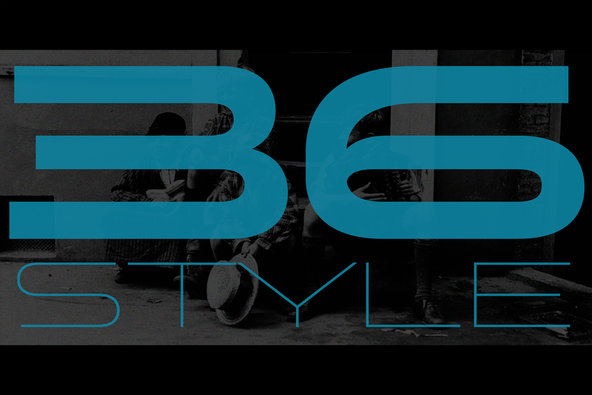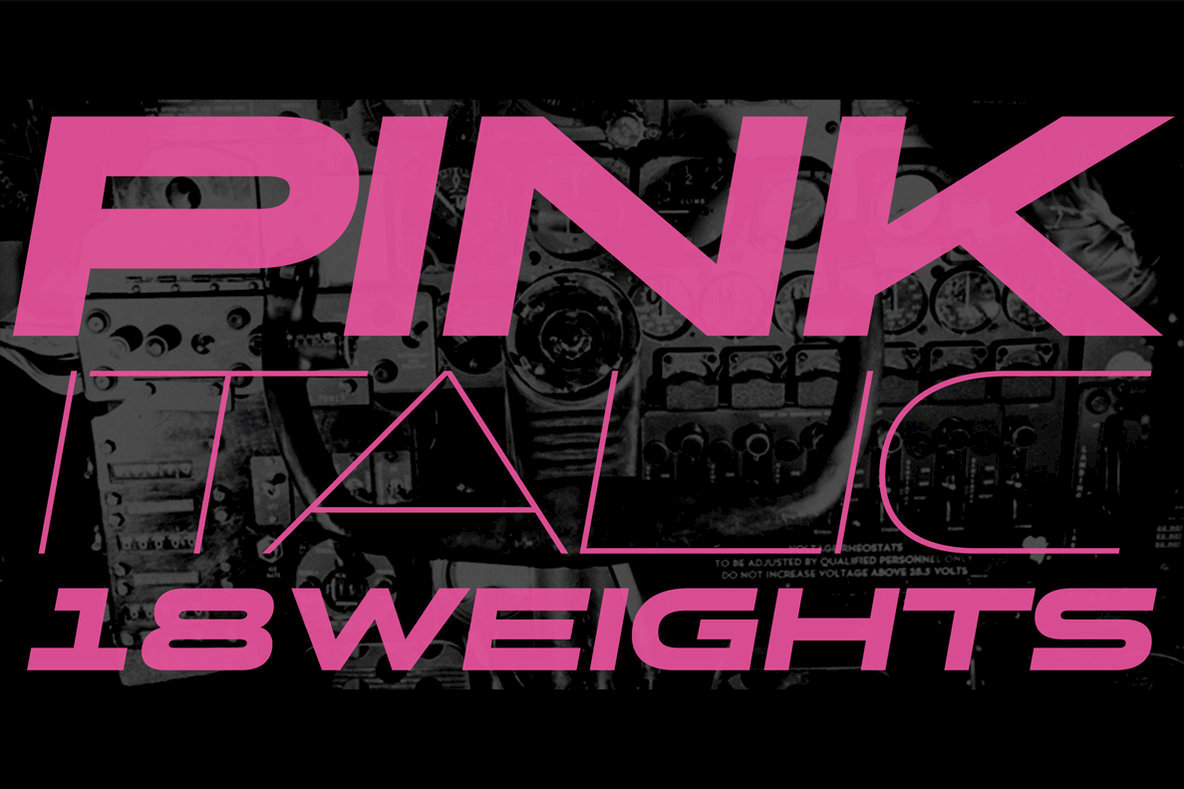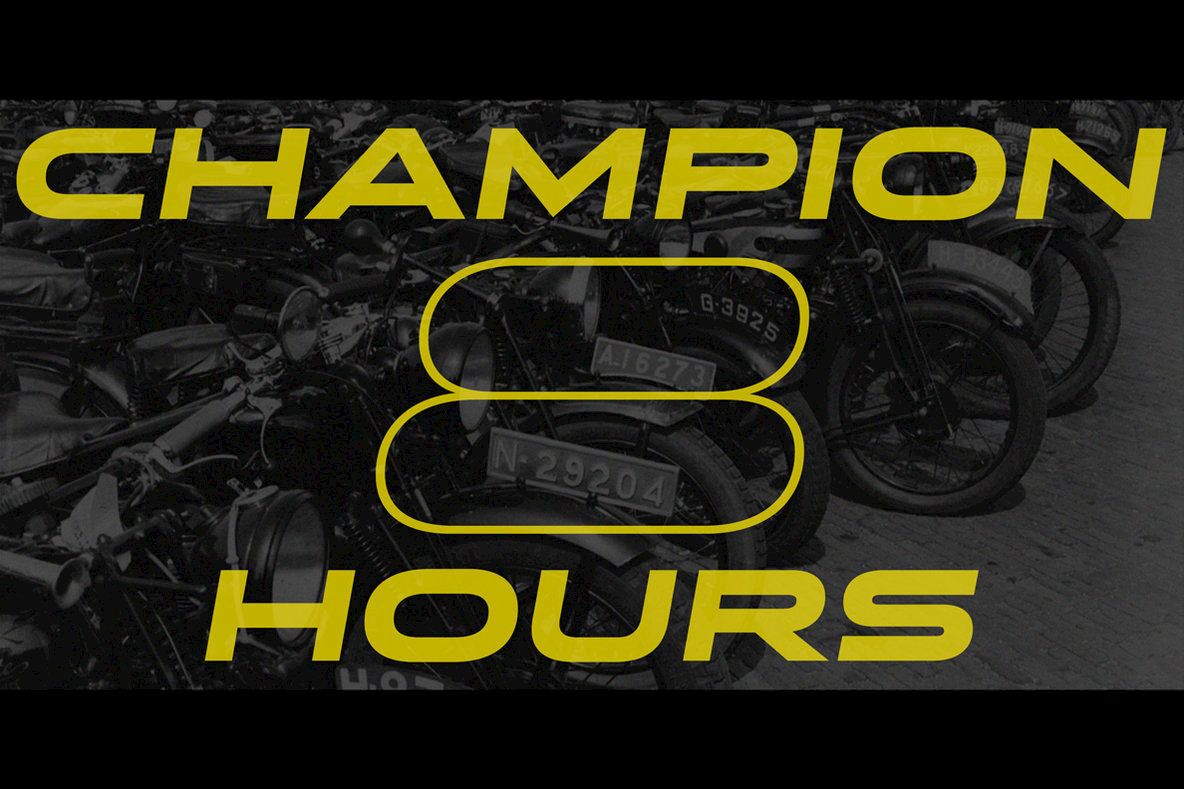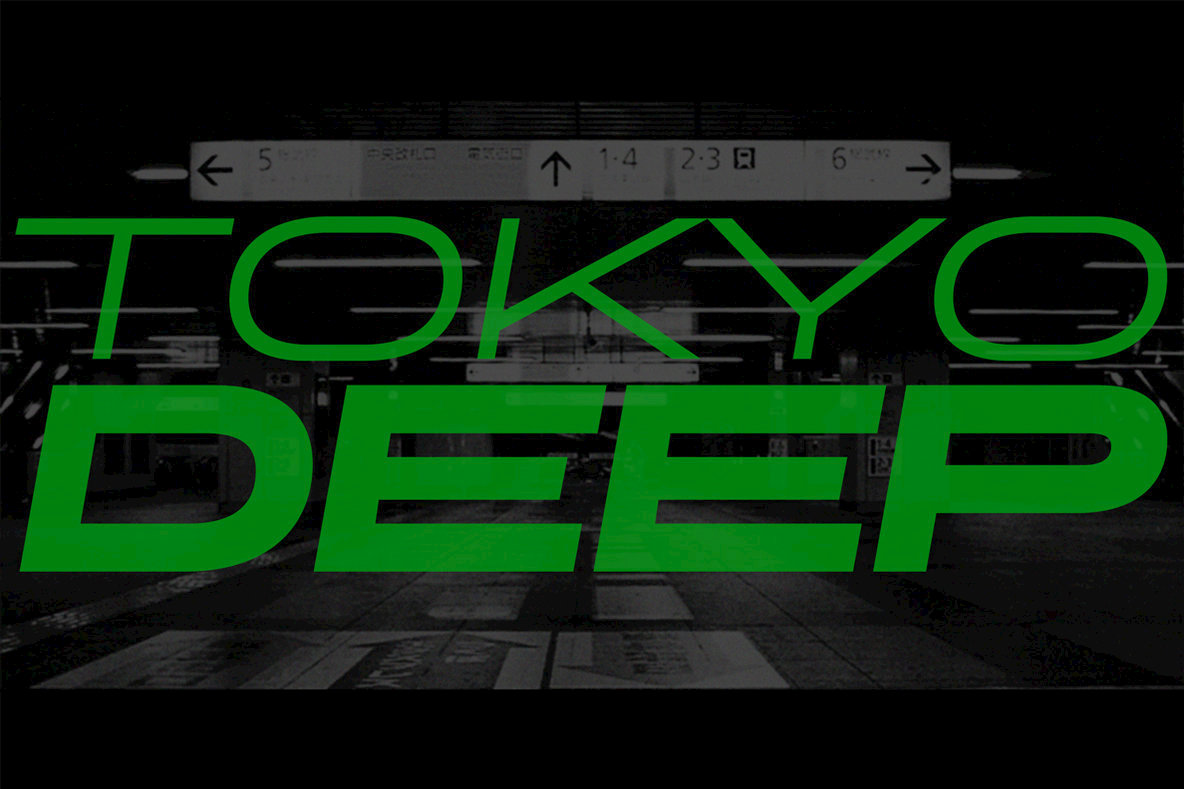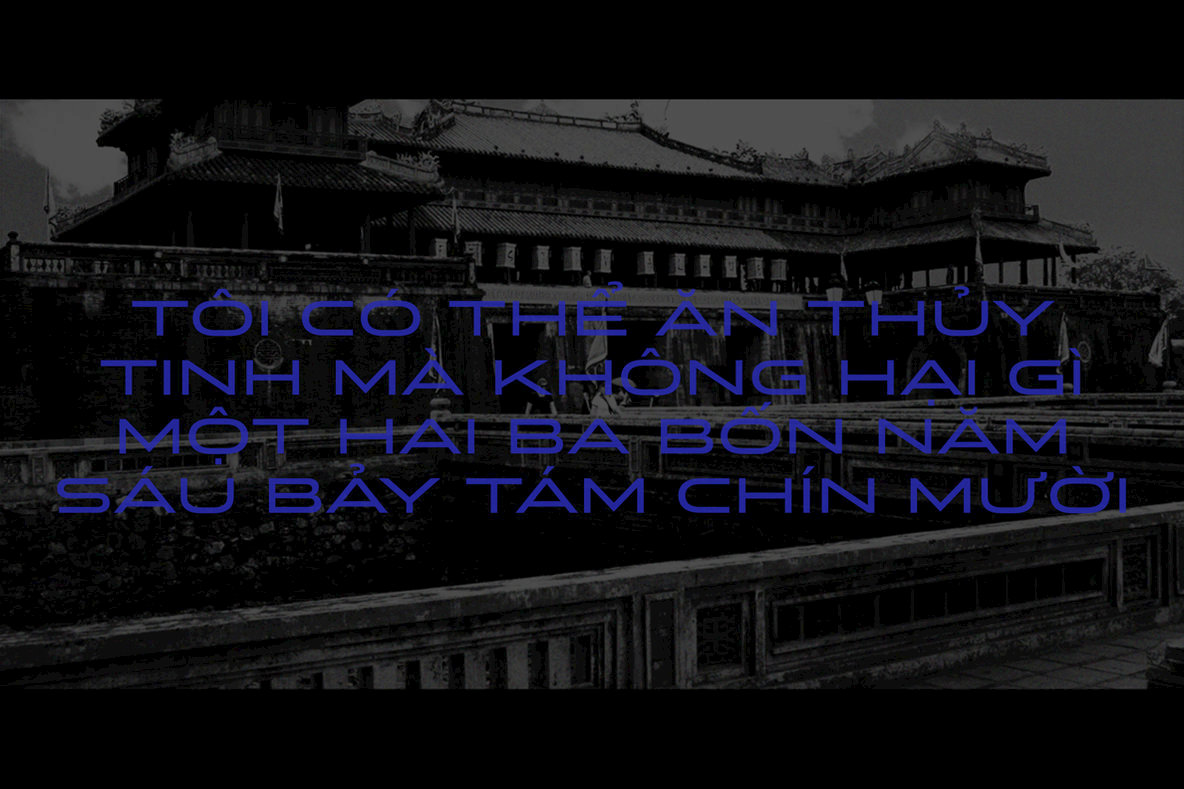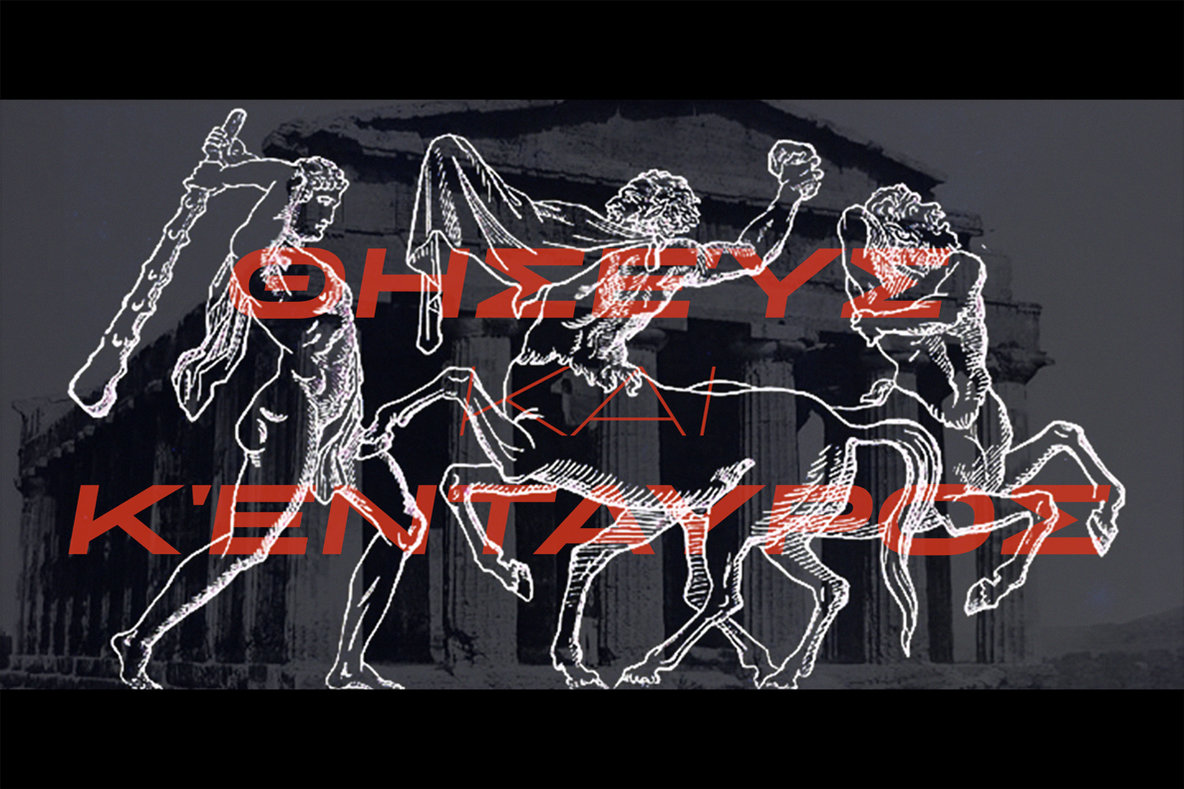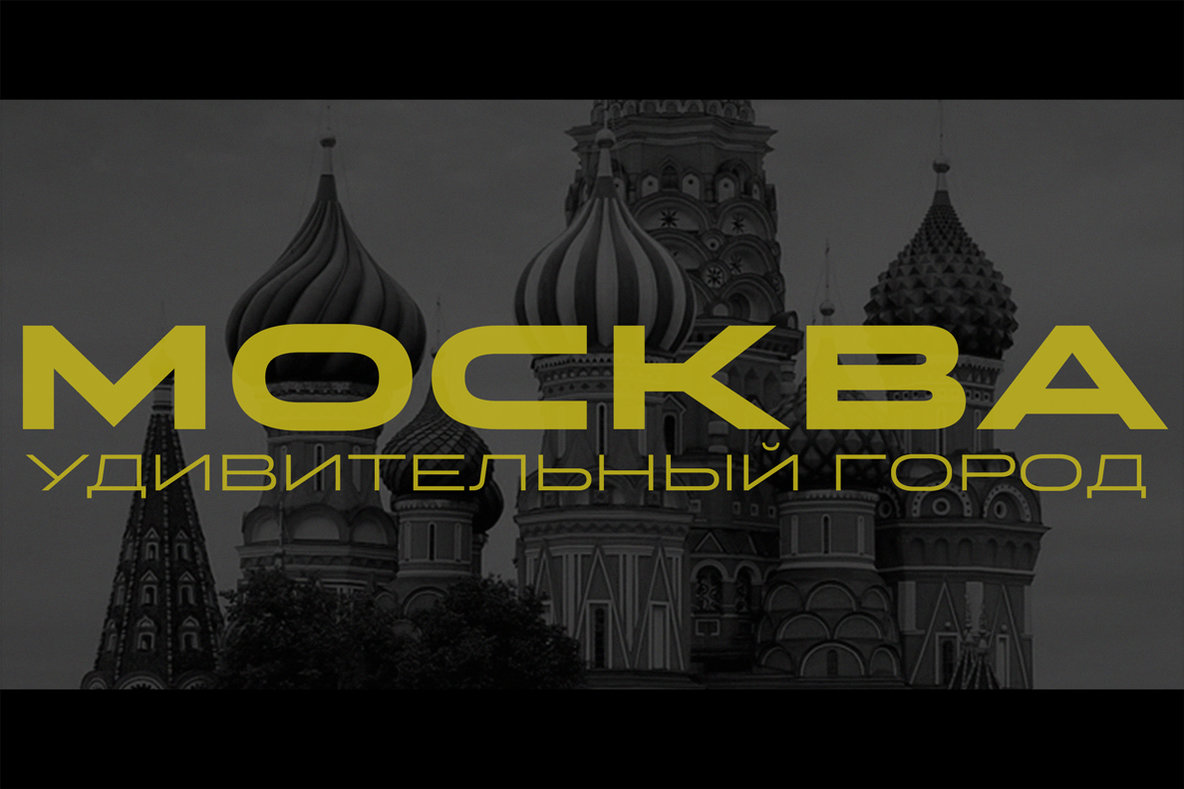
The concept of this font is very simple. We followed the rules of creating a wide and legible sans, with no decoration. With a variety of 36 weights, Stereo Gothic is full of flexible options for your project.